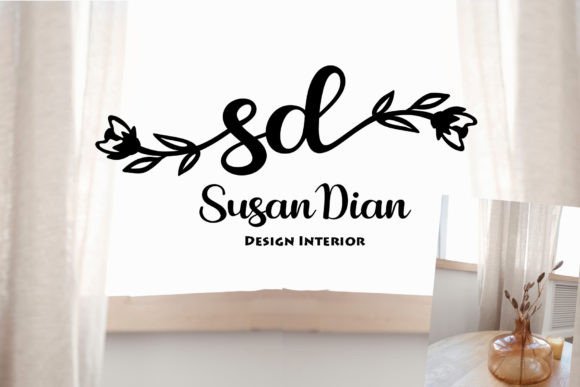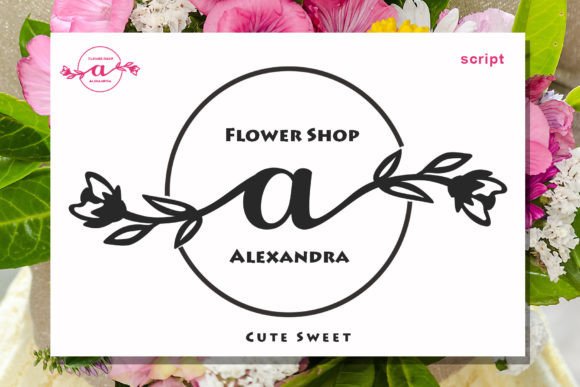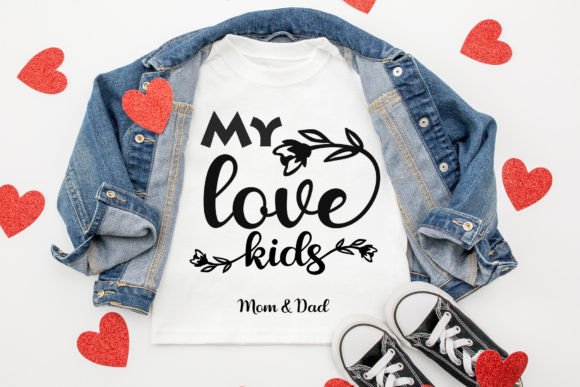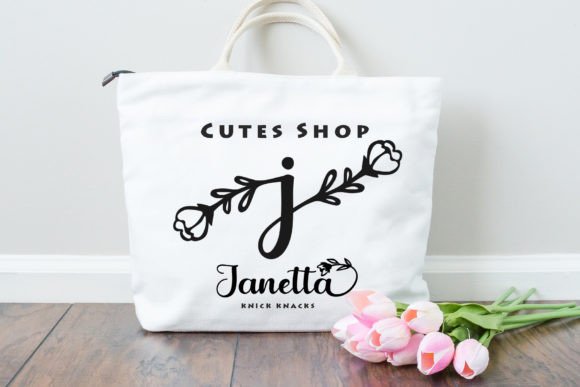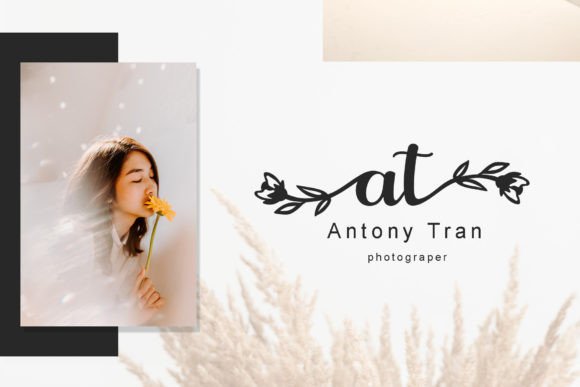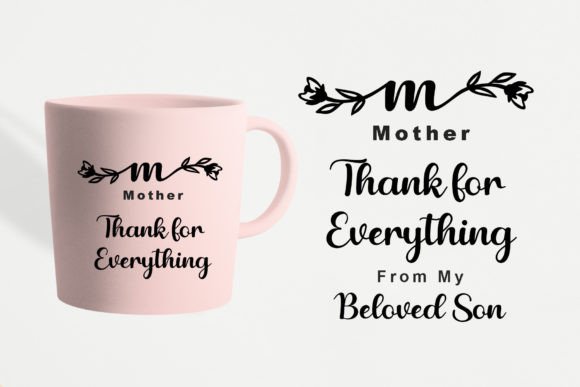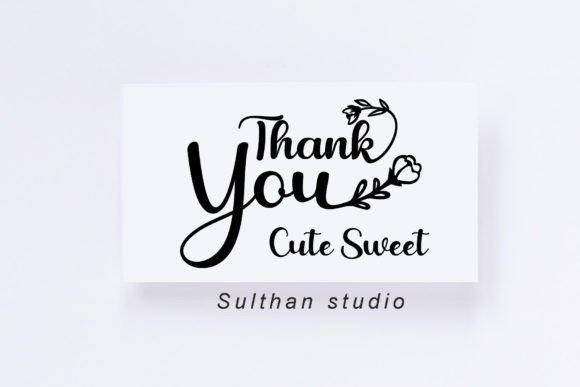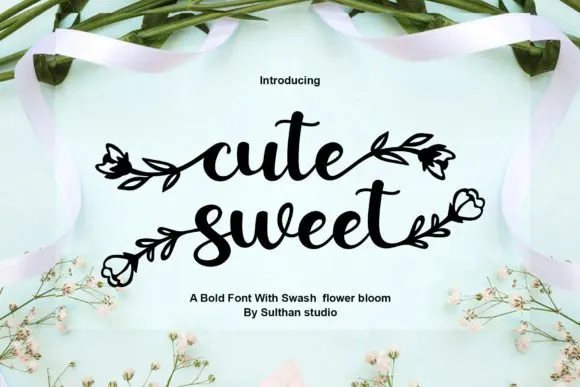
Cute Sweet
About Cute Sweet
Cute Sweet is an adorable script font, full of lovely romantic ligatures and alternates. It looks stunning on wedding invitations, thank you cards, quotes, greeting cards, logos, business cards, and every other design which needs a stylish, girly touch.